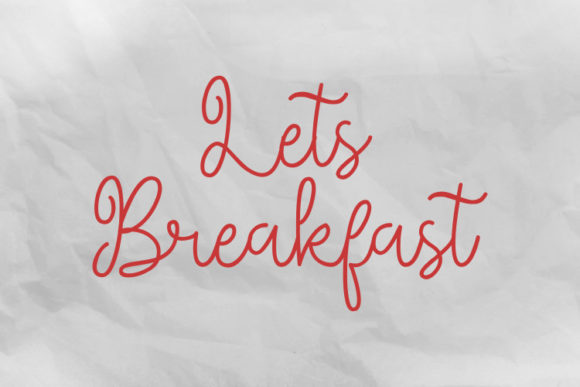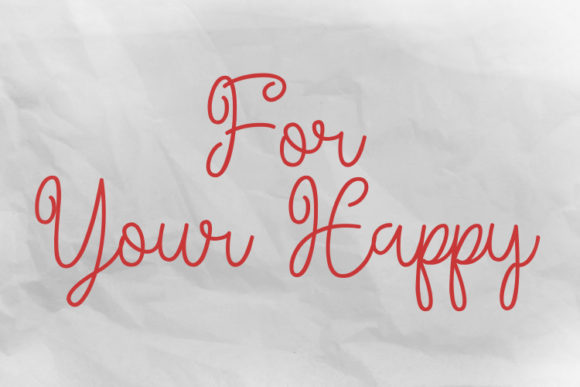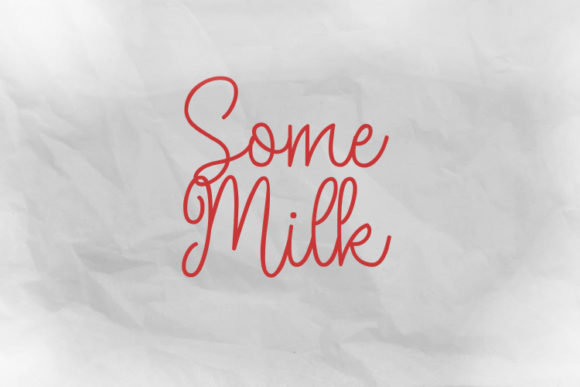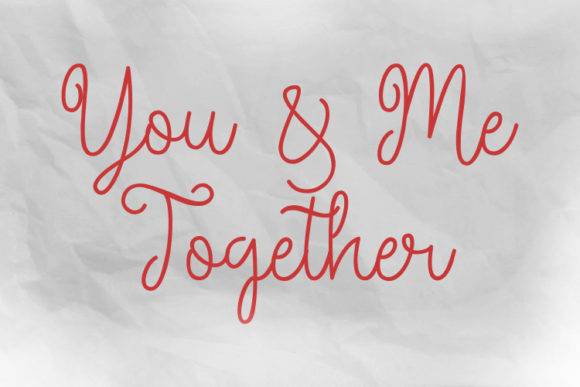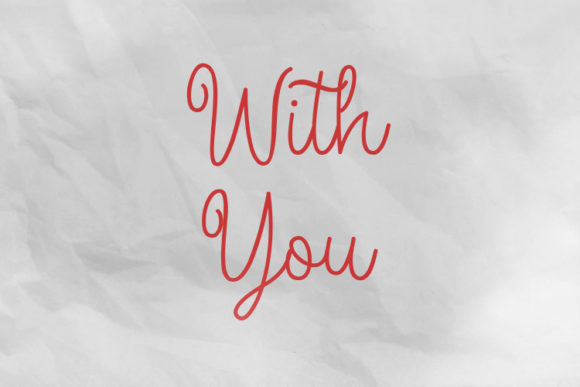
Introduction to Miss Naila Font
As designers, we’ve all been there – staring at a blank canvas, searching for that perfect combination of style and elegance to bring our creative project to life. For me, it was a late-night brainstorming session, surrounded by scribbled notes and half-baked ideas. That’s when I stumbled upon the enchanting Miss Naila Font, a delicate and sophisticated handwritten font that has since become my go-to design resource.
With its beautiful, well-balanced characters, the Miss Naila Font is a game-changer for any designer looking to add a touch of high-quality elegance to their work. Whether you’re working on a free download project or a commercial design, this font is sure to elevate your creations to the next level. Its transparent background makes it a versatile choice for a wide range of designs, from invitations to branding materials.
Key Features of Miss Naila Font
- High-quality font design with a unique, elegant style, perfect for creative projects.
- Transparent background, making it easy to use in various design applications and compositions.
- Available in a single size and resolution, making it easy to use in various design contexts.
- Miss Naila Font is a versatile design resource, suitable for a wide range of creative projects, from branding and advertising to digital art and publishing.
Honest Review: Miss Naila Font
As a designer, I’m always on the lookout for high-quality fonts that can elevate my creative projects. I recently had the chance to work with the Miss Naila Font, and I must say, it’s been a delightful experience.
What works well with the Miss Naila Font is its elegant and sophisticated design. The font is perfect for creating a luxurious and high-end feel, making it ideal for projects that require a touch of sophistication. The transparent background allows for easy color customization, making it a great design resource.
- ✨ Elegant and sophisticated design
- ✨ Perfect for high-end and luxury projects
- ✨ Easy color customization with transparent background
- ⚠️ May not be suitable for playful or casual projects
Overall, I’m impressed with the Miss Naila Font. While it may have some limitations, its elegant design and high-quality make it a valuable addition to any designer’s toolkit. I would definitely recommend it for designers working on high-end and luxury projects.
Miss Naila Font
Tips for Getting the Most Out of Miss Naila Font
For the best results, use Miss Naila Font in conjunction with a clean, simple design aesthetic. Avoid overusing bold or italic text, as this can detract from the font’s elegant appearance. Experiment with different font sizes and colors to create a unique and eye-catching look.
Common Use Cases for Miss Naila Font
Miss Naila Font is perfect for a wide range of creative projects, including wedding invitations, business cards, and marketing materials. Its high-quality design and transparent background make it ideal for use in digital graphics, presentations, and other visual projects.